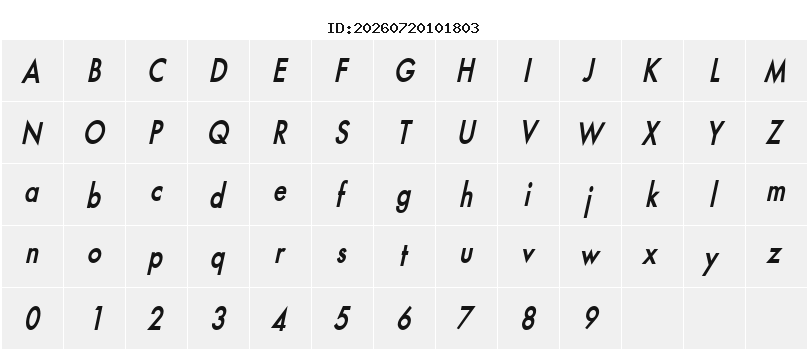
About Fusi-Condensed.ttf
Fusi-Condensed.ttf is a modern, elegant sans-serif font designed for ultimate readability and visual harmony. Perfect for branding, headlines, web design, and print materials.